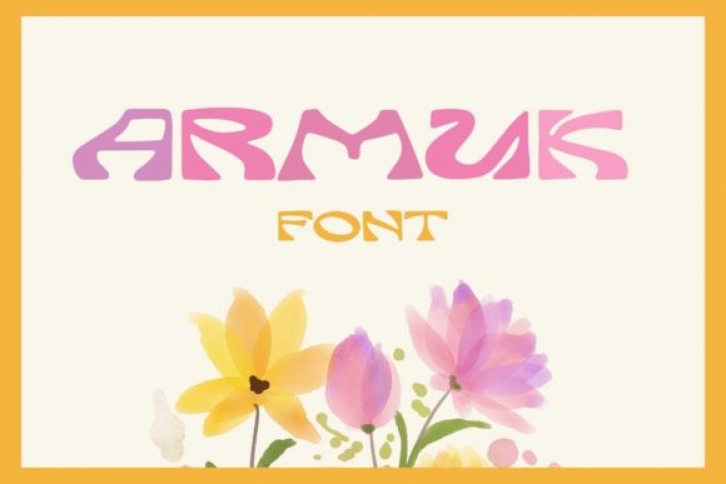
Armuk is an incredibly cool and hippie looking display font. Add it to each of the creations that require a trendy and casual touch and you will love the outcome.